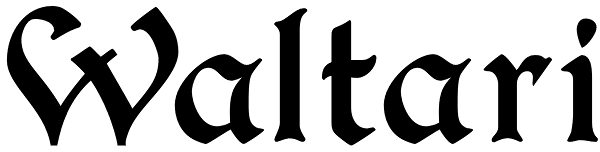
Waltari
Designed by Heinz Konig, Waltari was released by the Rudhard'schen Giesserei of Offenbach A.M., Germany in 1900, and reflects all the flamboyant exuberance of that period. Waltari is a Jugendstil rotunda, combining its blackletter roots with a...